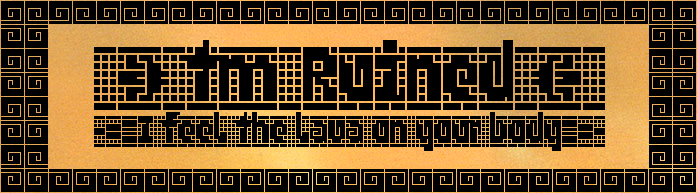
• This is [was] a minimum [http://fontstruct.com/fontstructors/minimum/public] font, created December, last year. Unfortunately, minimum account has developed some problems that prevents normal usage such as editing descriptions, downloading fonts, commenting, etc. Nevermind. He was useless anyway. :-)
This is absolutely beautiful. Unlike some of your previous work, such as fs Etched, this one includes lower case letters, too. Splendid demo picture. 10/10
Congratulations! FontStruct Staff have deemed your FontStruction worthy of special mention. “tm Ruined” is now a Top Pick.
Awesome work!
I'm with the people!
Love how the white lines take unexpected turns to form letters. I could see this carved in stone.
Congratulations on the TP. I can see this used in lino printing ...
Wow, this font looks so awesome that it is 100% unreadable.